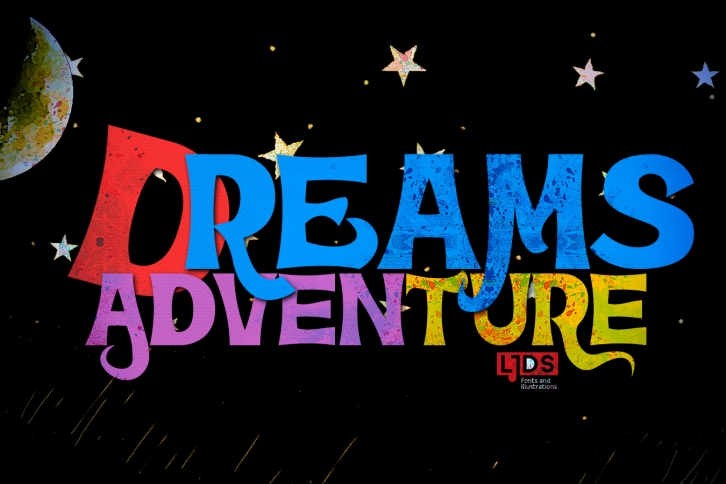
Dreams Adventure is a beautiful font that was designed by LJ Design Studios. It's a great choice for designers and creatives who need such a font. It was released on December 29, 2018 and the file size is 18.35 MB. Dreams Adventure may give a more youthful, expressive and casual look to your project. It is a very beautiful, refined, elegant, and high-quality font.